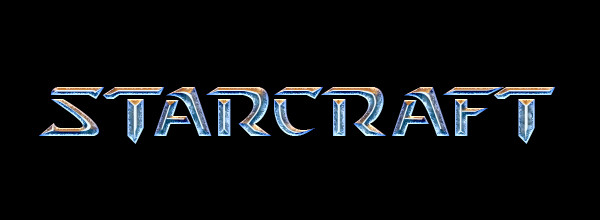
A cool looking Starcraft II inspired font style made by me using only PhotoShop. If you want the tutorial you can find it on my blog [link]Related content